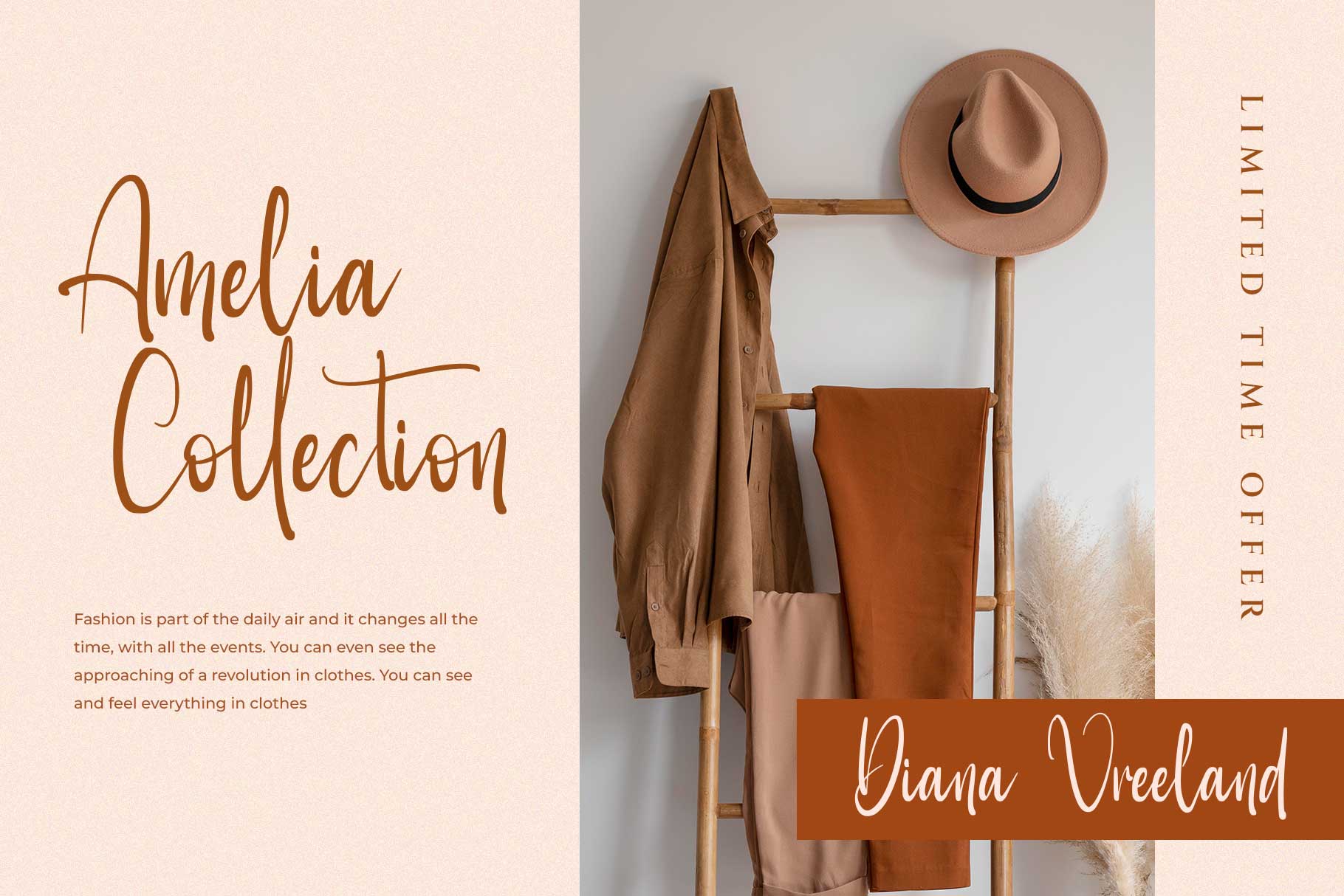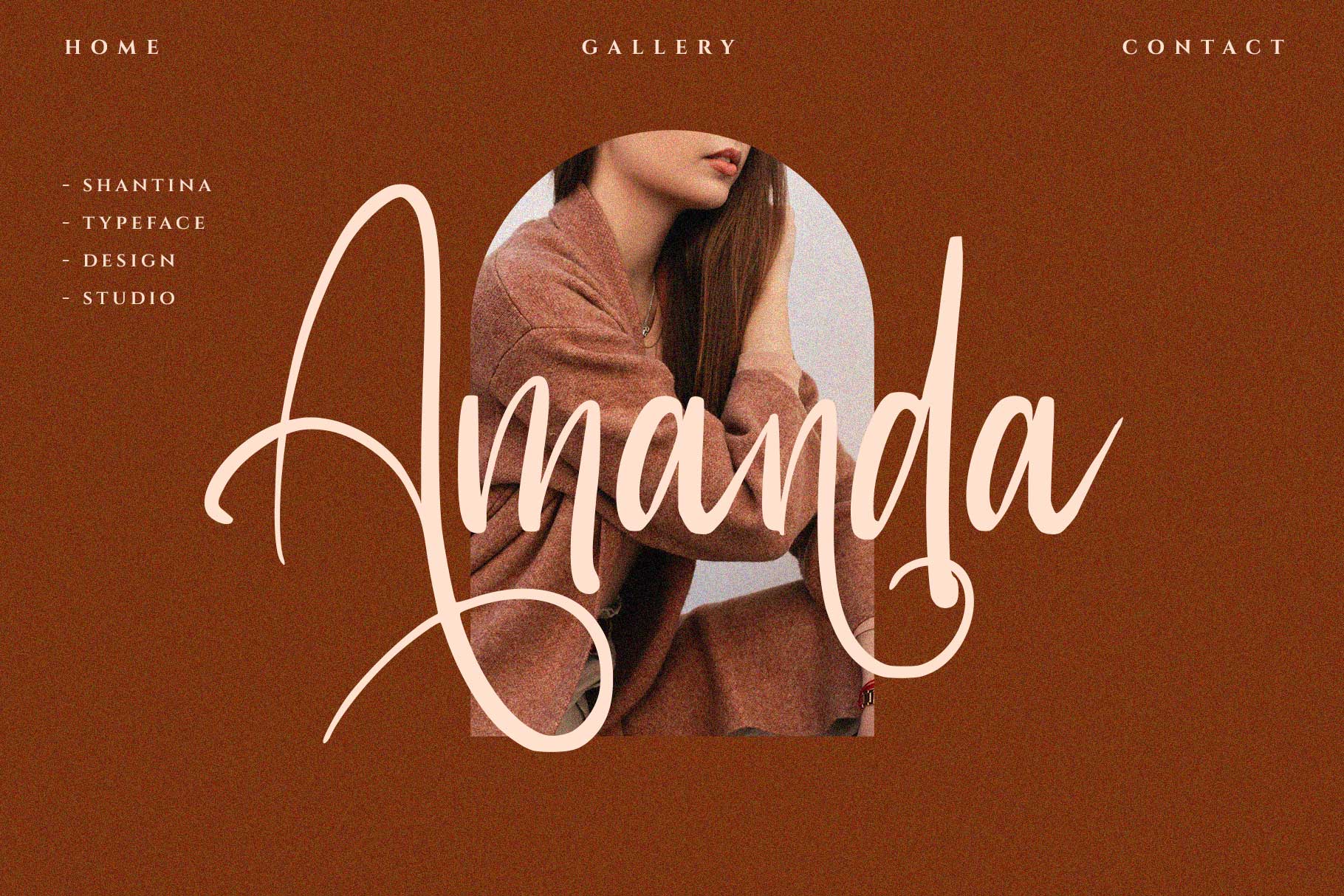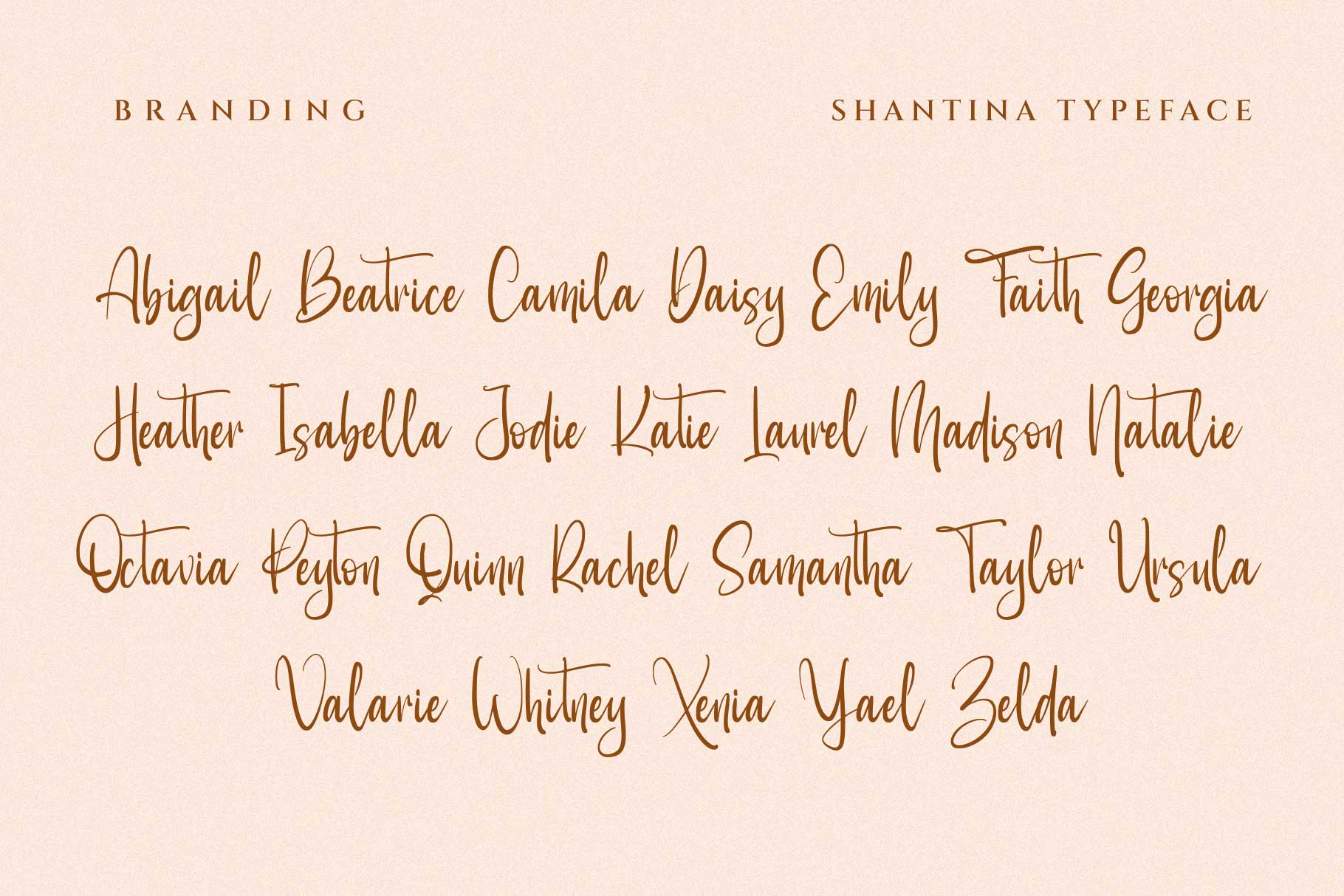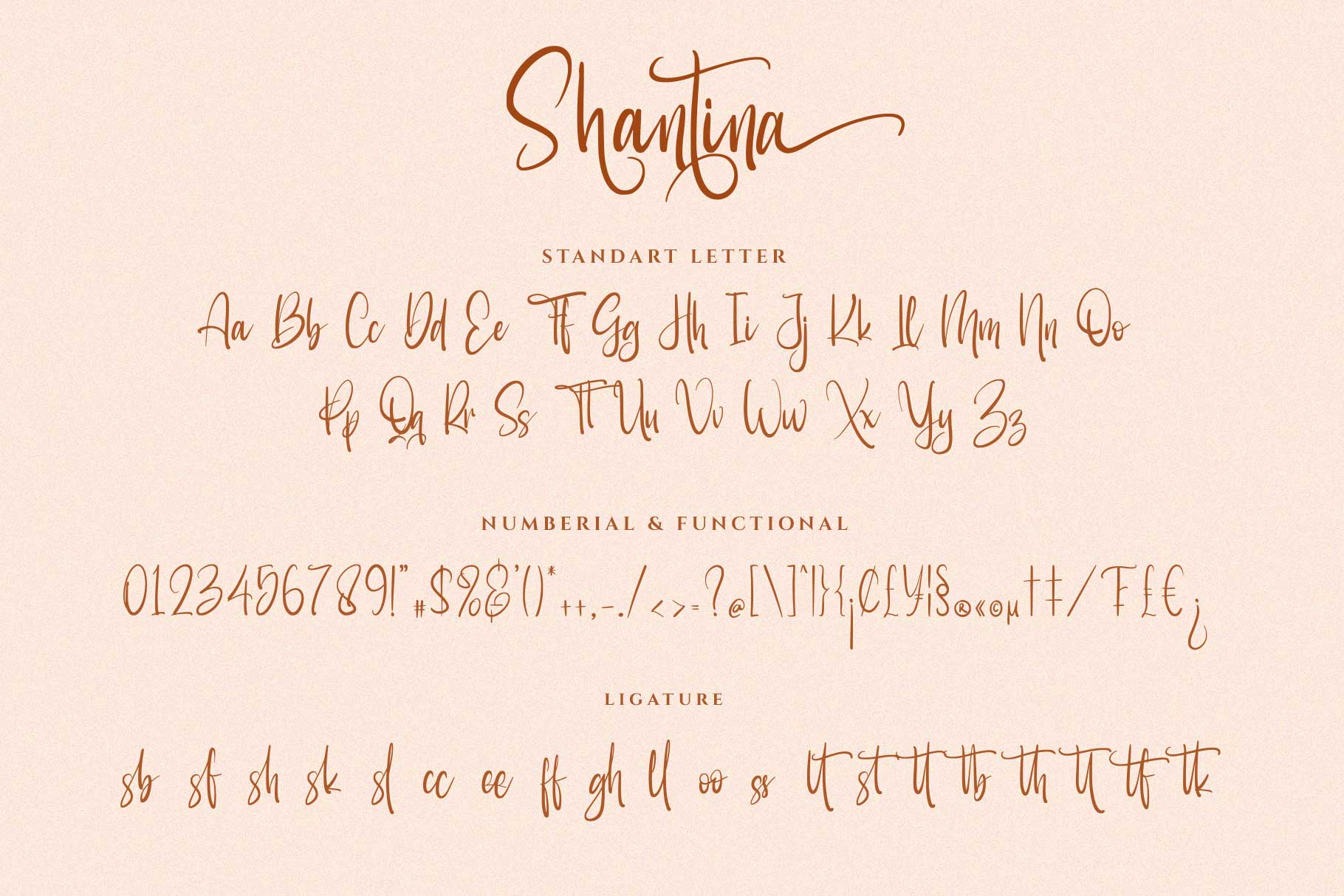
Shantina A Modern Calligraphy Font
Shantina is calligraphy font it’s looks modern, feminine, girly, catchy and easy to use. Shantina is the great choice for watermark on wedding organizer, signature or signature logo design, quotes, album cover, business card and many other design project.
• Basic Latin A-Z and a-z
• Begin and end swashes